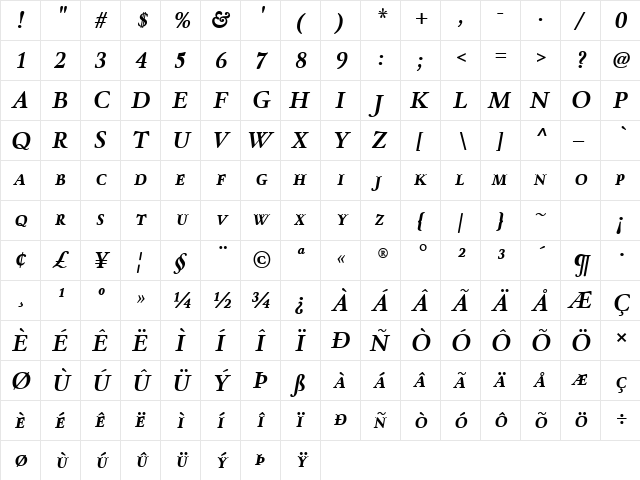
Winthorpe SmallCaps Bold Italic
Design Context for Winthorpe Typeface
Winthorpe offers clean, dependable letterforms without strong stylistic allegiance, making it a practical choice for designers who need flexibility. Its italic angle brings a sense of urgency and motion to the letterforms. Its bold stroke weight gives it real presence on the page.
Pro Tip: Use Winthorpe for emphasis, pull quotes, and subheadings where its slanted energy can add rhythm to the layout.